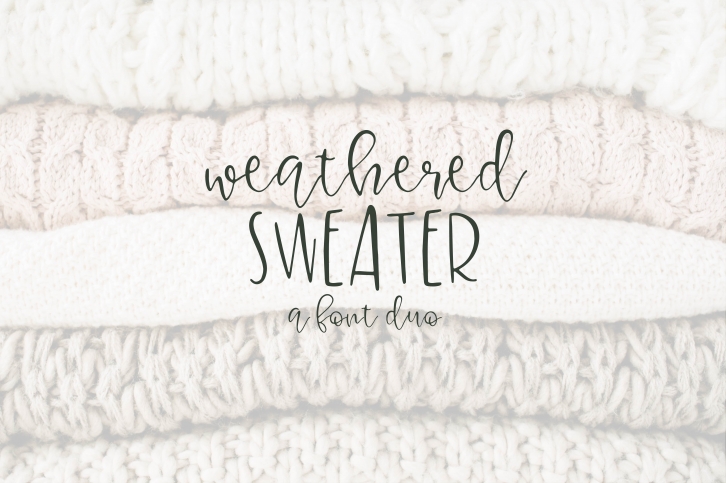
Weathered Sweater is a great font that was designed by On The Spot Studio. Imagine the amount of combinations you can create using this font! The archive is 18.84 MB and it was released on August 17, 2017. Weathered Sweater looks beautiful on wedding invitations, greeting cards, logos, posters, labels, t-shirt designs, logos, business cards and is perfect for use in ink or watercolor works, fashion, magazines, packaging and food menus, children's books and more!